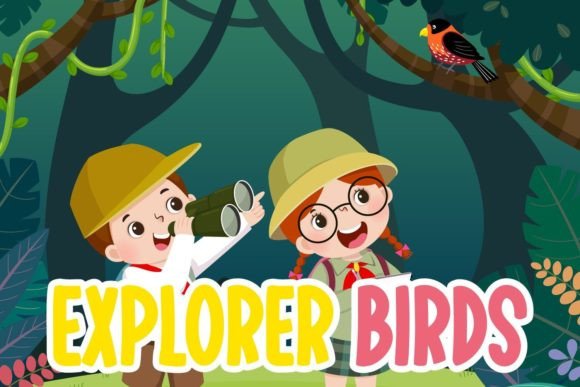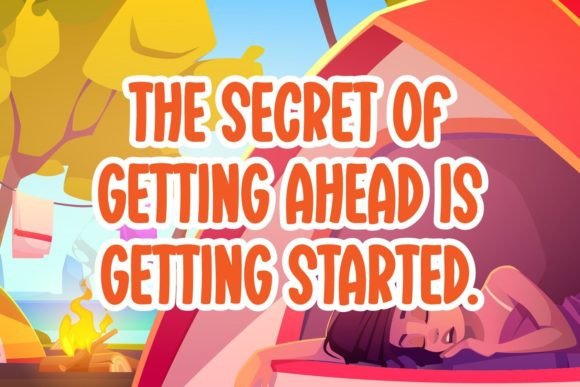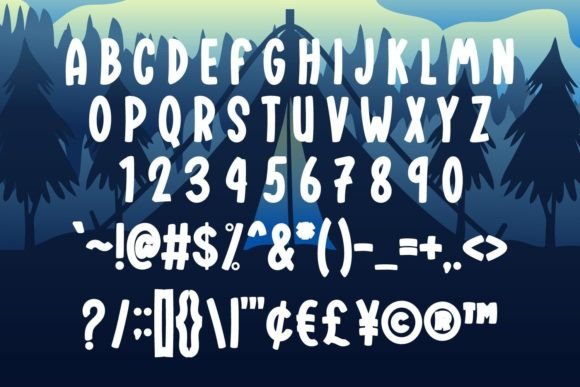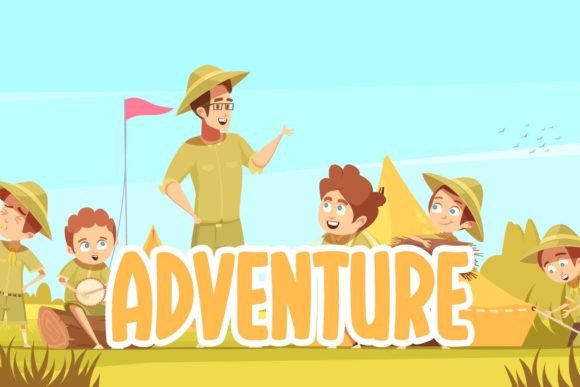
Discover the Fun in Typography: Camping Ground Font
Who hasn’t had that magical moment when a design idea strikes, and you can’t wait to bring it to life? For designers, these sparks of creativity can be the difference between a good project and an exceptional one. For me, it was the moment I stumbled upon the Camping Ground Font – a display font that exudes brilliance, fun, and cuteness.
The Camping Ground Font is a versatile display font designed to stand out in any topic. Its playful nature makes it perfect for children-themed designs, especially when paired with vibrant colors. As a designer, having the right font can elevate your project from good to great, and the Camping Ground Font is no exception. Its value lies in its ability to add a touch of whimsy and fun to your designs, making it a valuable addition to any designer’s toolkit.
Camping Ground Font Key Features
- Font Family: A unique, hand-drawn font with a rustic, outdoorsy feel, perfect for camping and nature-themed designs.
- Unique Characteristics: The font features a distinctive, handwritten style with varying line widths and subtle imperfections, giving it a natural, organic feel.
- Character Set: The font includes a wide range of characters, including uppercase and lowercase letters, numbers, and punctuation marks, making it suitable for use in a variety of design applications.
Camping Ground Font Review
Overall, I’m impressed with the Camping Ground Font. It’s a unique and versatile font that can be used in various design projects, from outdoor-themed websites to branding materials.
- ✨ Natural, hand-drawn feel that evokes a sense of adventure and freedom
- ✨ Highly customizable, with various weights and styles to choose from
- ✨ Works well in both digital and print formats
However, I do have some concerns:
- ⚠️ The font may not be suitable for projects that require a more formal or professional tone
- ⚠️ Some characters may not be optimized for certain languages or character sets
- ⚠️ The font may be too playful for some audiences, which could detract from the overall message
Overall, I would recommend the Camping Ground Font for designers who are looking for a unique and adventurous feel. Just be mindful of the potential limitations and ensure that the font aligns with your project’s tone and audience.
Tips for Getting the Most Out of Camping Ground Font
Use the Camping Ground Font for outdoor-themed projects, such as camping, hiking, or nature-inspired designs.
Combine the font with outdoor-themed graphics, such as mountains, trees, or wildlife, to create a cohesive look.
Experiment with different font sizes and colors to create visual interest and emphasis.
The Camping Ground Font is ideal for:
Outdoor event invitations and promotional materials.
Nature-inspired logos and branding.
Camping and hiking trip guides and brochures.